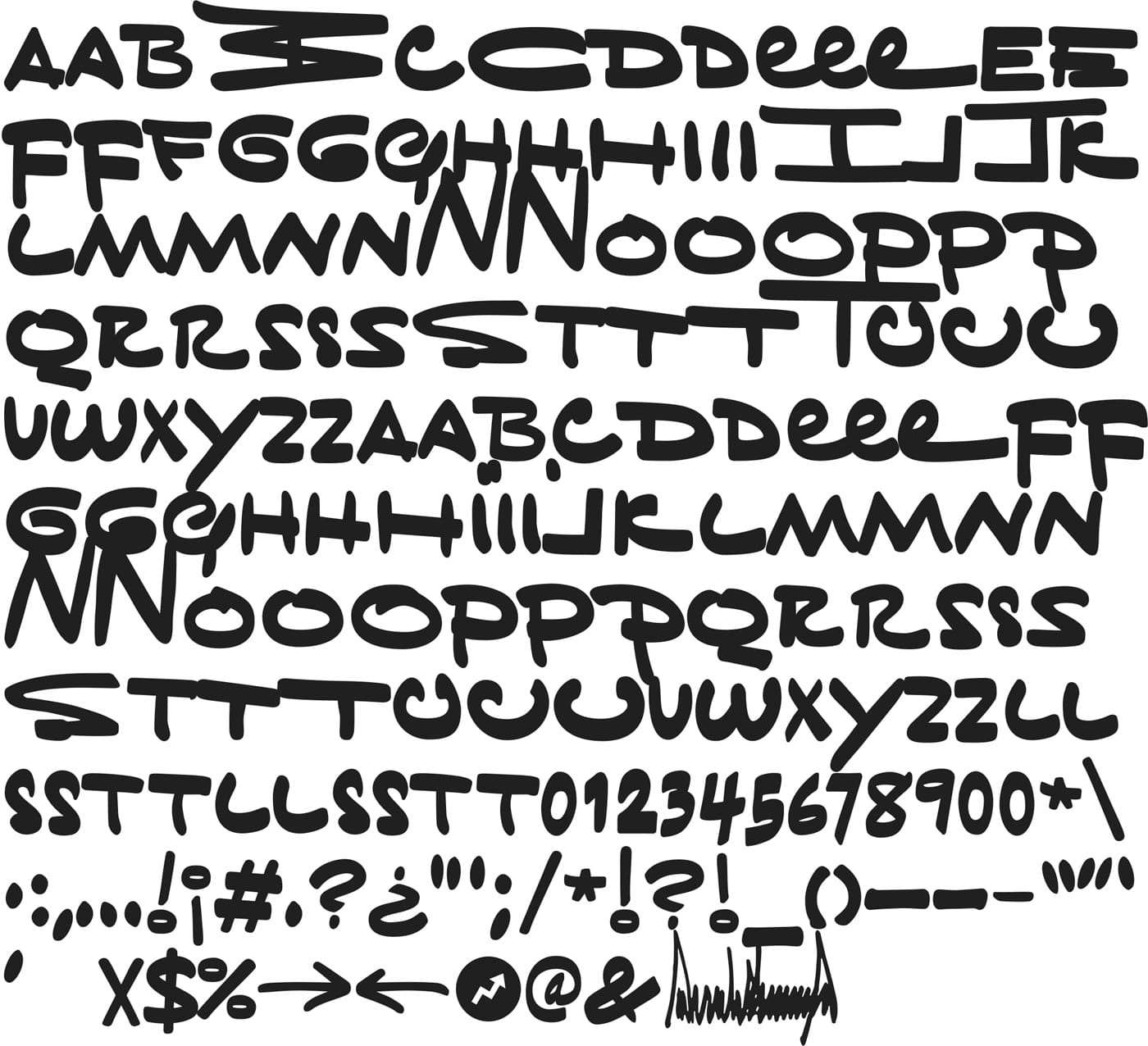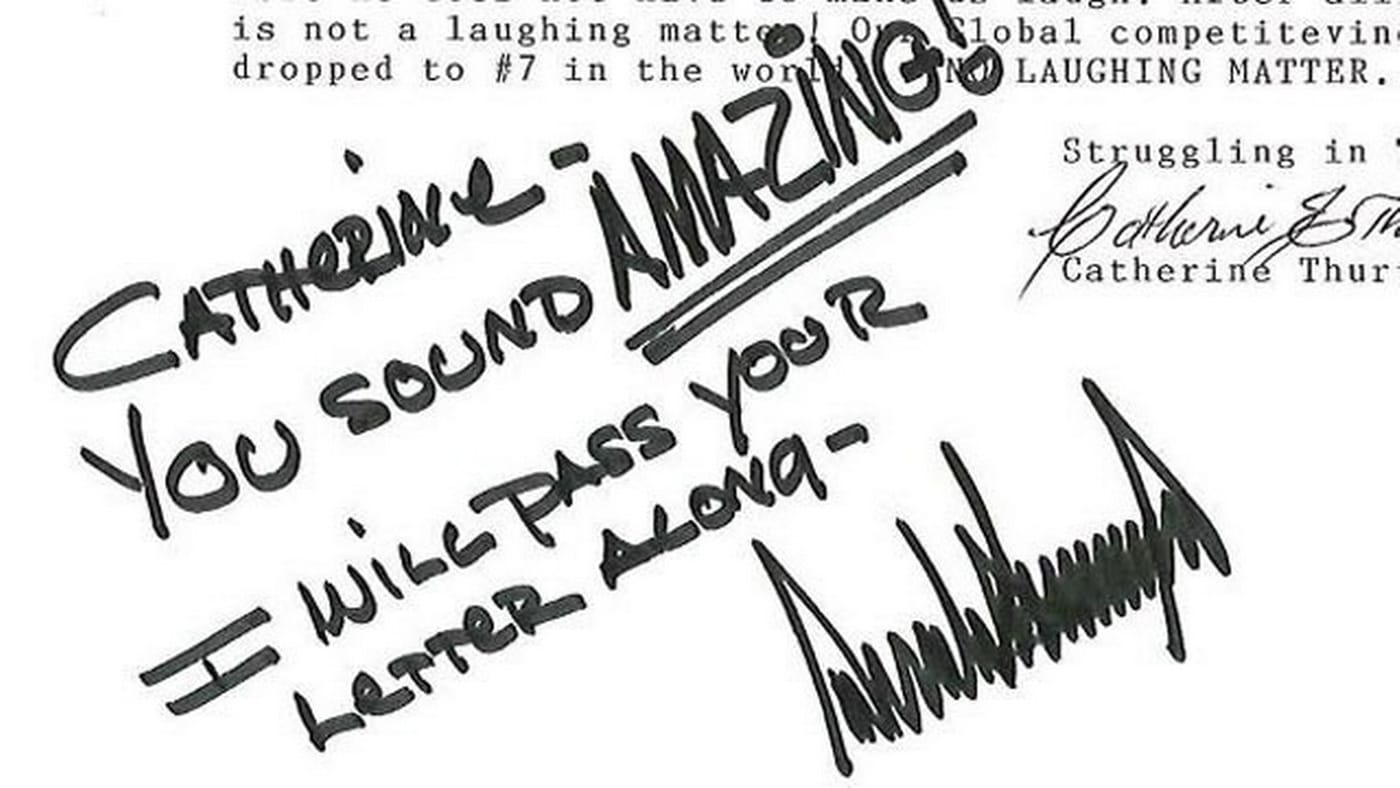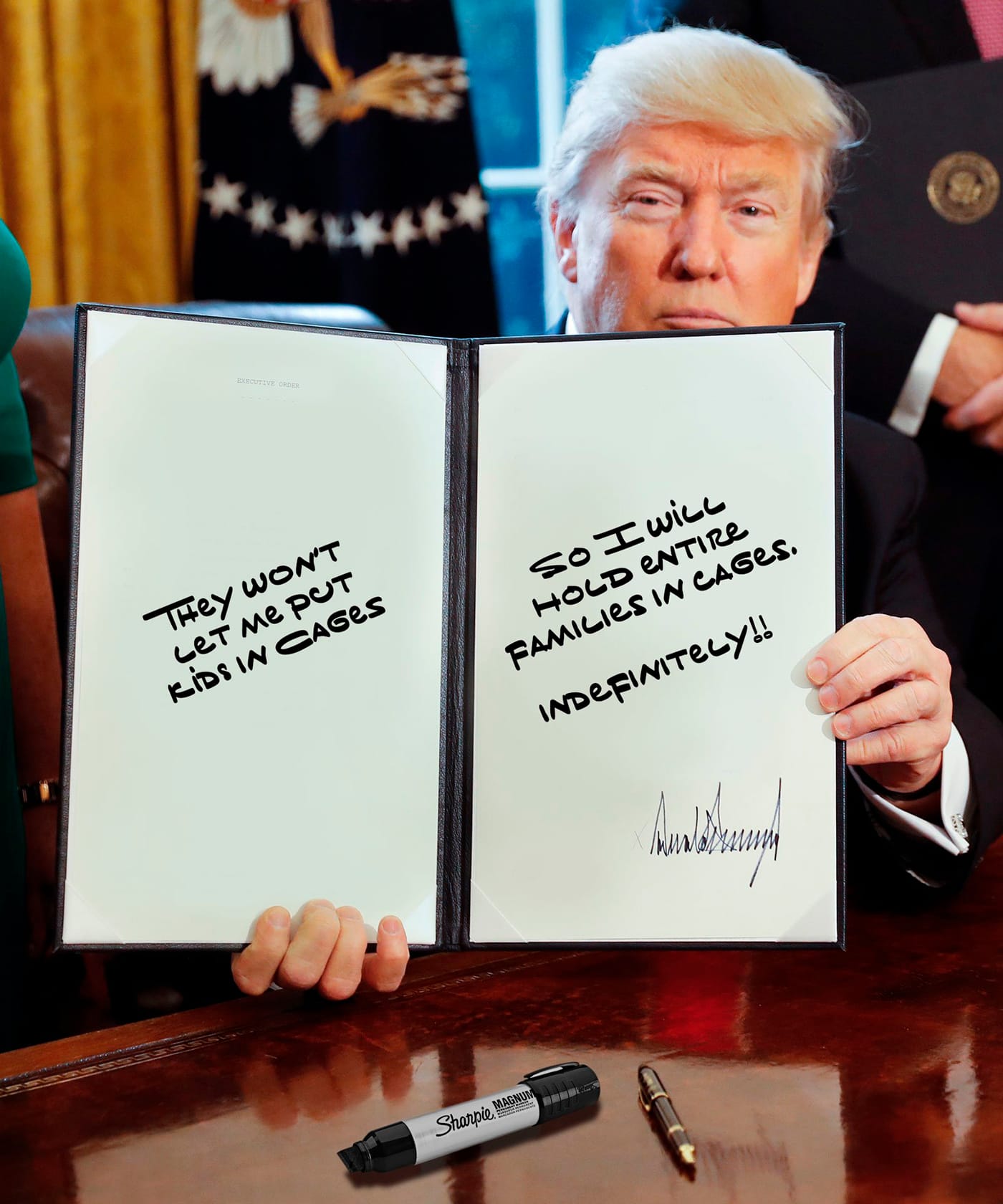
Make Any Document Dumber With This Font Based on Trump's Handwriting
Trump’s oversized script recently made an appearance during his ongoing saga with Ambassador Sondland. It has now been transformed into “Tiny Hands,” a new font available for free download.
As impeachment rears its head, we’re all hoping the writing is on the wall for Donald Trump, but last week the nation was temporarily diverted by the writing on his notepad. Donald Trump’s stupid handwriting, last the subject of ridicule in 2017 when he took an excessively long time to sign his first executive order, has since taken a backseat to the many other stupid things about him. But his oversized, childish script recently made an appearance as he attempted to rebut some incriminating testimony by Ambassador to the European Union Gordon Sondland in the House Intelligence Committee’s impeachment inquiry hearings.
Some internet pundits — including the professionally hilarious Patton Oswalt — observed that the President’s basic-ass talking points were lyrical, triggering a spate of fantastic musical send-ups in the style of Morrisey, the Ramones, and every emo band ever. But many chose to focus on the truly odd proportions (and perhaps sinister implications) of the handwriting itself.
Luckily enough for anyone hoping to make their writing look dumber, designer Mark Davis has adapted the President’s cartoonish handwriting into a custom font for Buzzfeed, dubbed Tiny Hand, which is available for free download. The font was originally created for a fake Trump memo in a satirical piece on Buzzfeed, and then Deputy Art Director Ben King went back to the well for some in-depth handwriting analysis in a second article.
“Trump’s notes, written to friends and enemies alike, were almost always written at an angle, scrawled on top of printouts of articles from the internet,” wrote King. “I was struck not only by the peculiar delivery of the notes, but also by the idiosyncratic way Trump writes the alphabet. At that moment it was clear to me — as it surely must be to you, dear reader — I had to make a font based on Donald Trump’s handwriting.”
The task fell to Davis, who “cranked it out in about two days,” according to a statement on the Tiny Hand portfolio on his website. That is incidentally the same amount of time the President spent learning to read and write.
“Trump’s handwriting is unusual,” said Davis, in an email interview with Hyperallergic. “He has a quite distinctive and unusual hand, I would almost relate it to the lettering we would associate with Walt Disney’s signature. Some might even call it comical in its own right.”